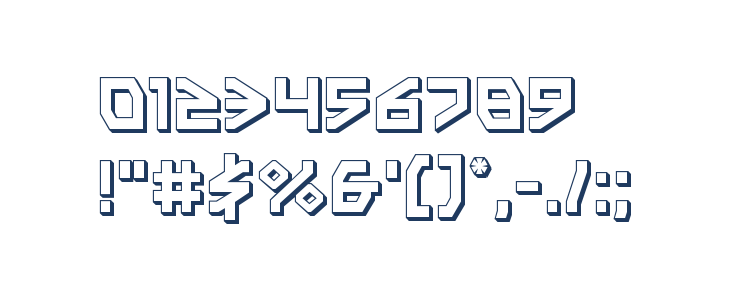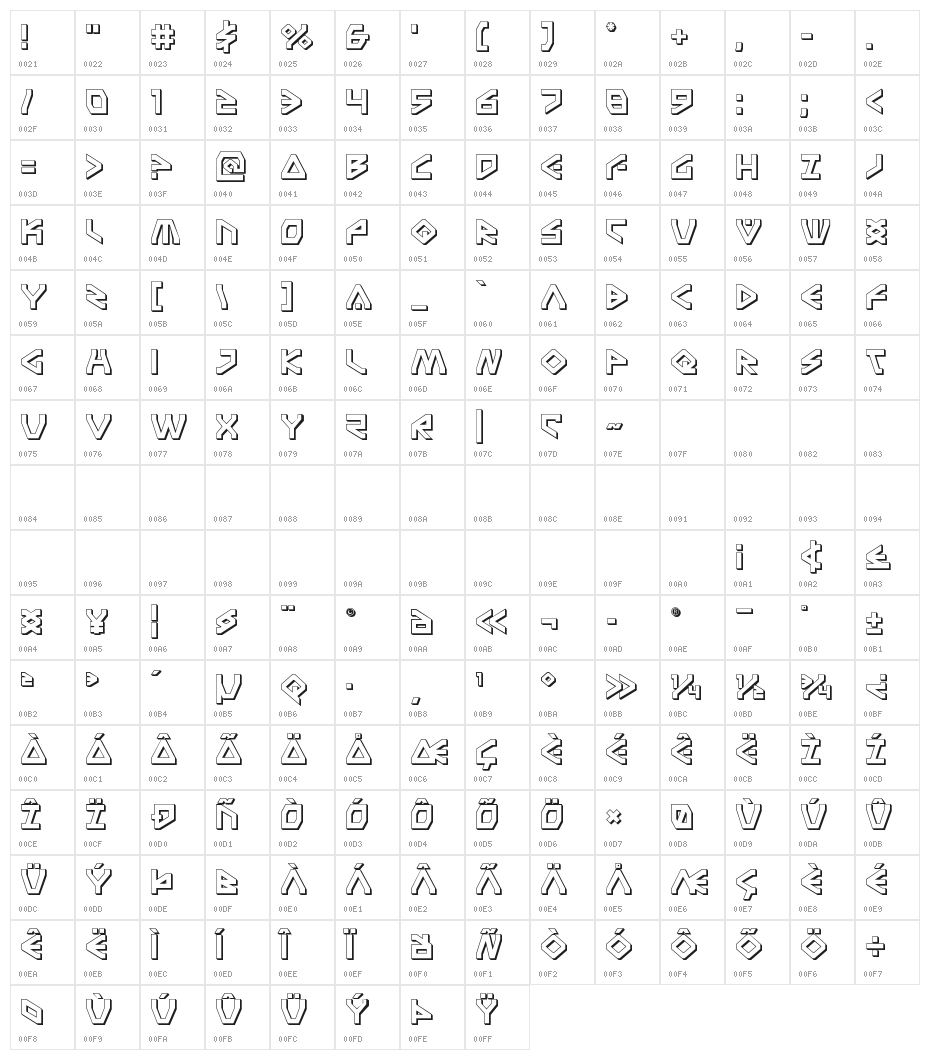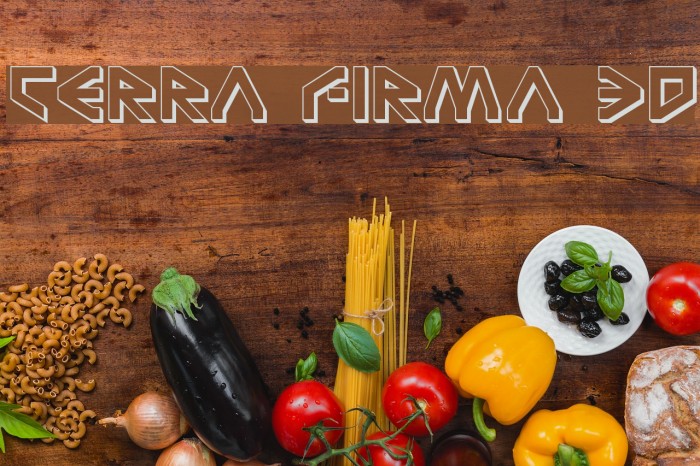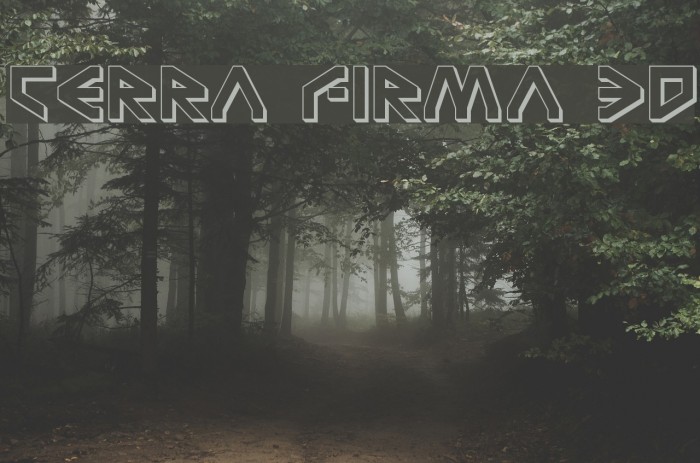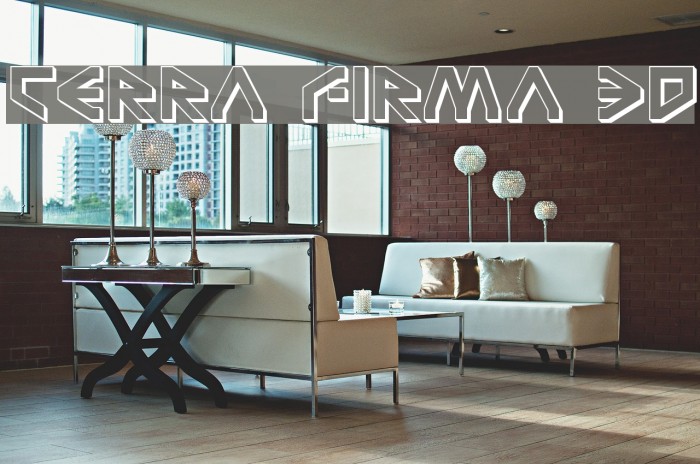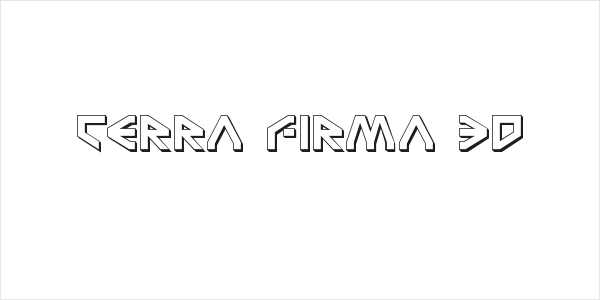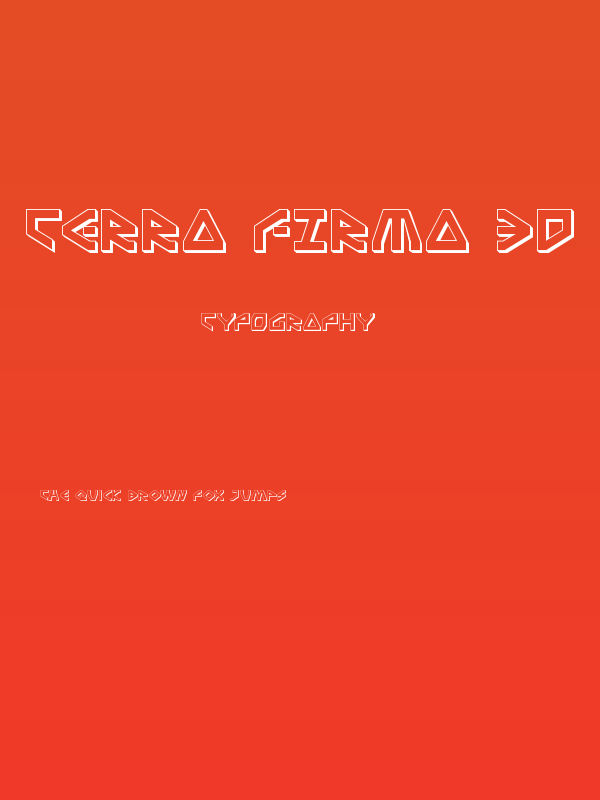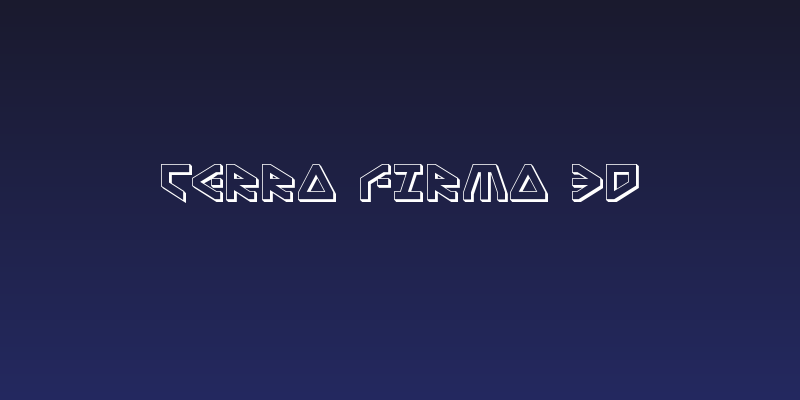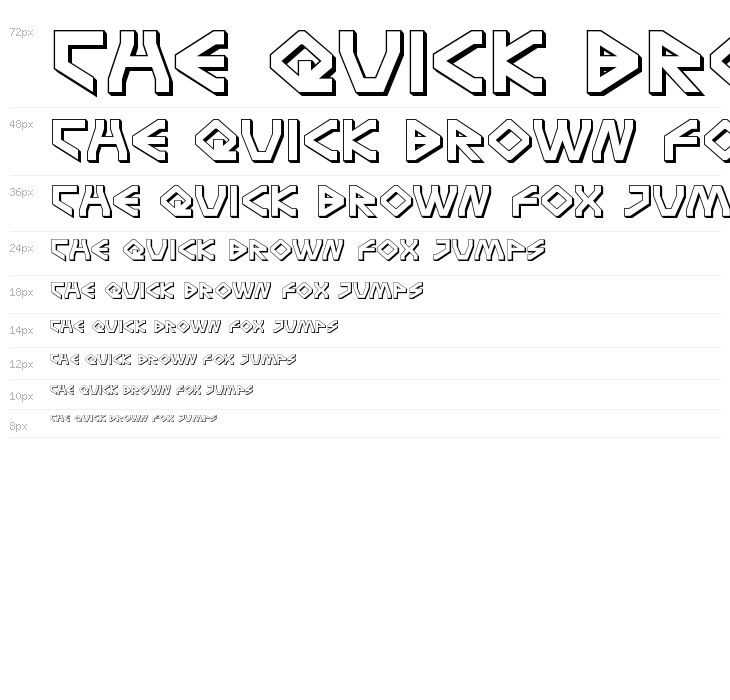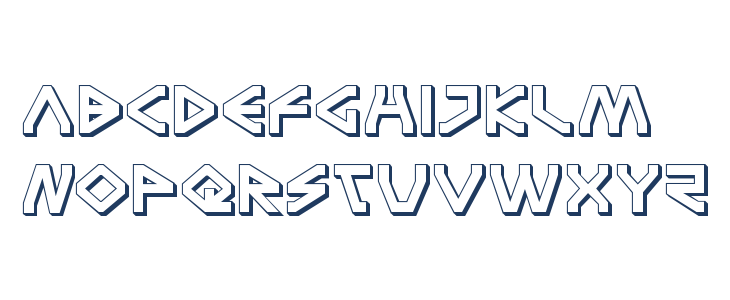
Terra Firma 3D Font
Terra Firma 3D Description
This font features a bold, three-dimensional design with a geometric and futuristic aesthetic. Each character is outlined with a shadow effect, giving it a distinct depth and presence. The angular shapes and sharp edges contribute to a modern and dynamic look, making it stand out in any design. The uppercase and lowercase letters maintain a consistent style, while the numbers and special characters complement the overall theme. This font is ideal for projects that require a strong visual impact and a contemporary feel.
| Proposed Projects | Ideal for sci-fi themed designs, video game titles, posters, and branding that requires a modern and impactful look. |